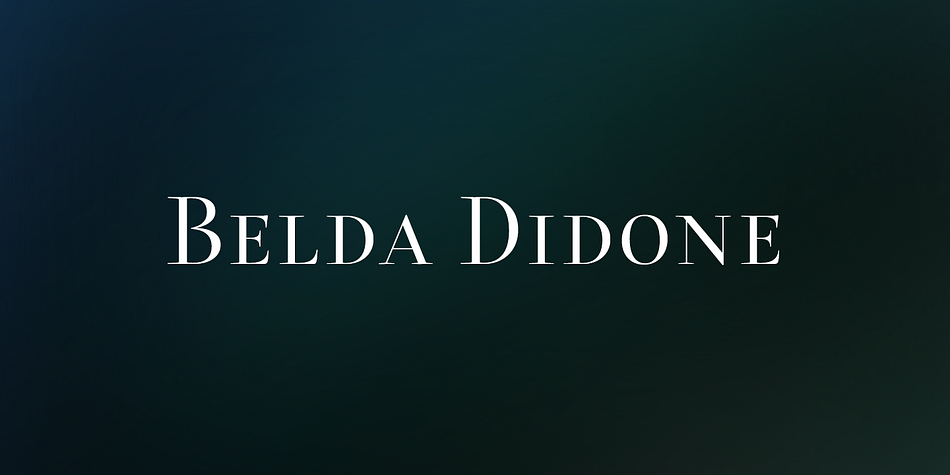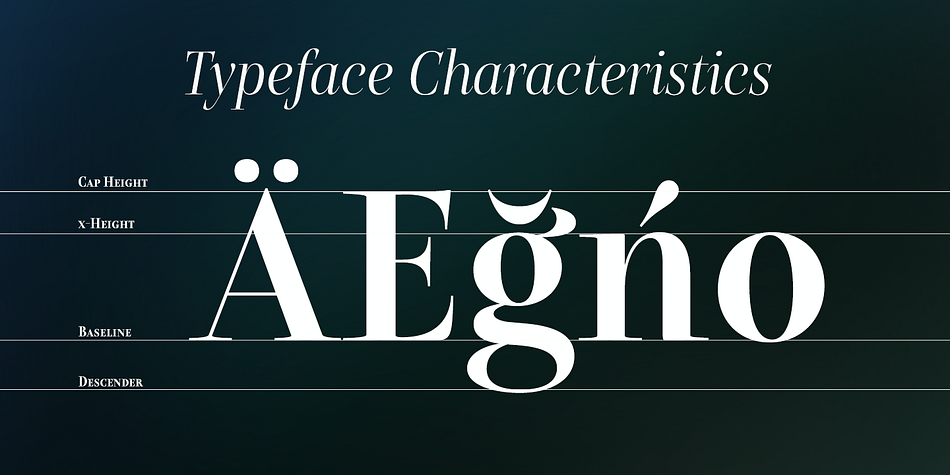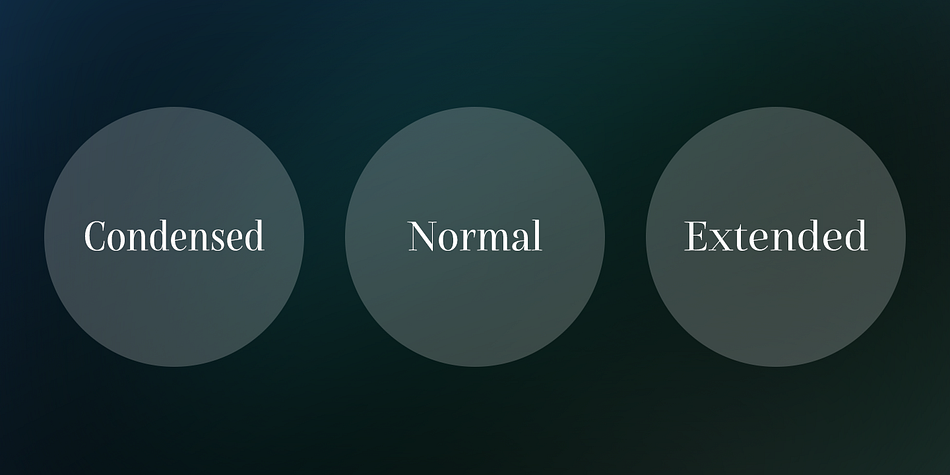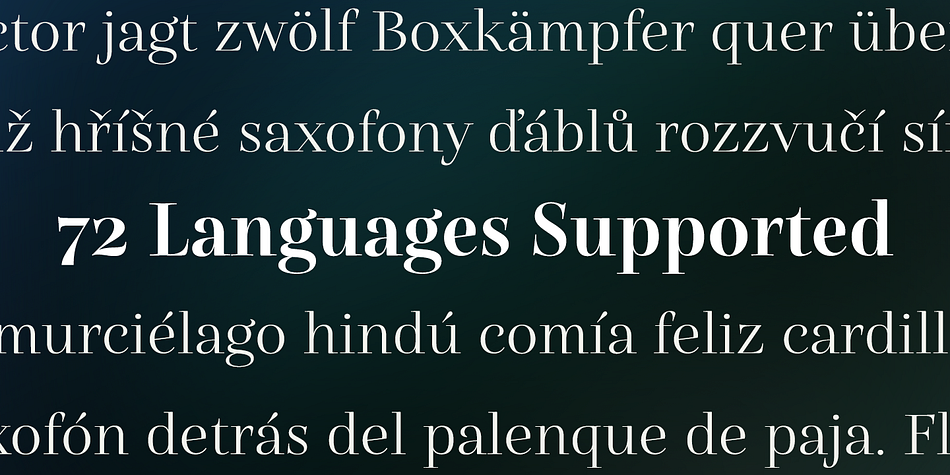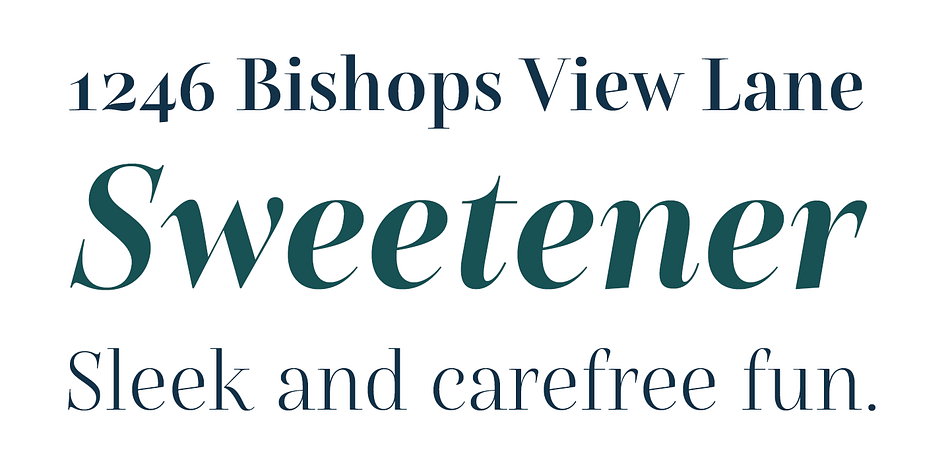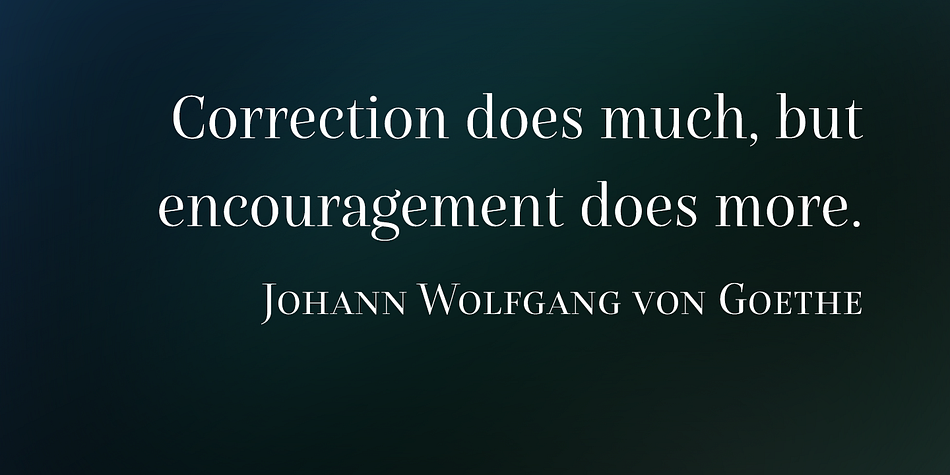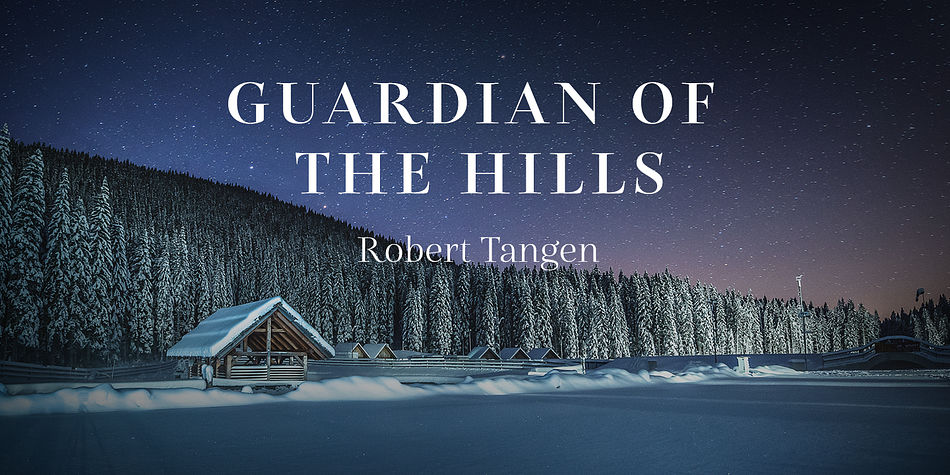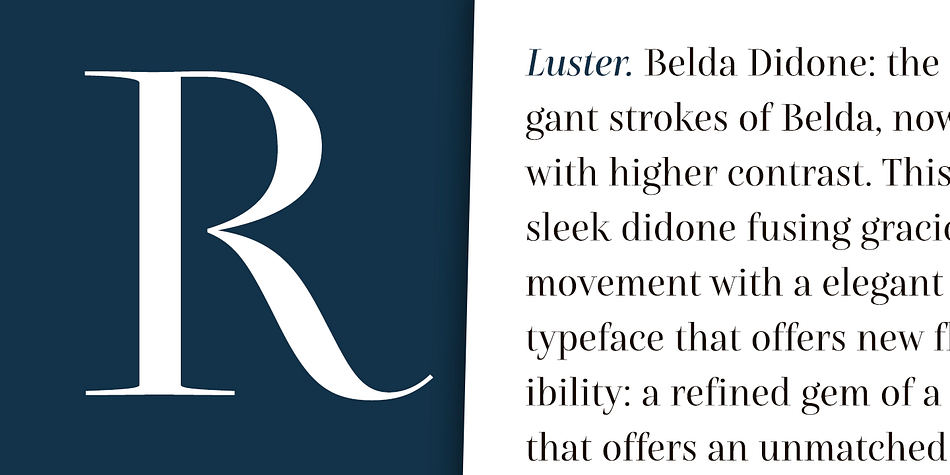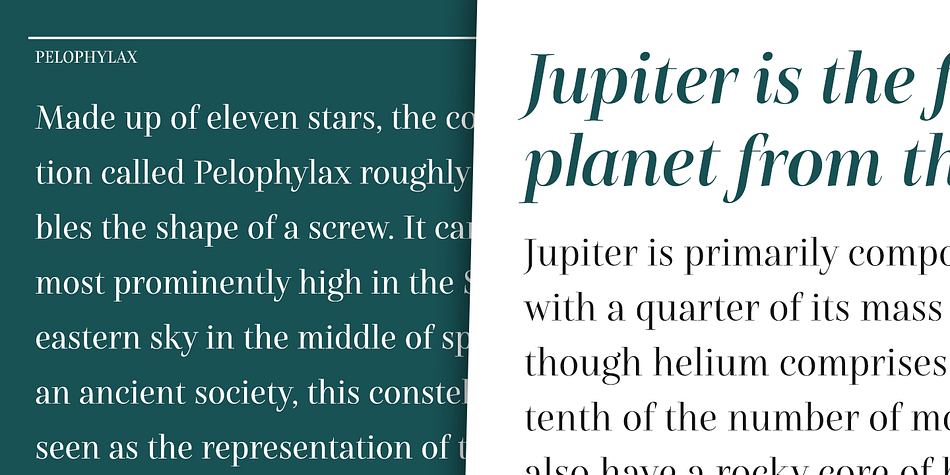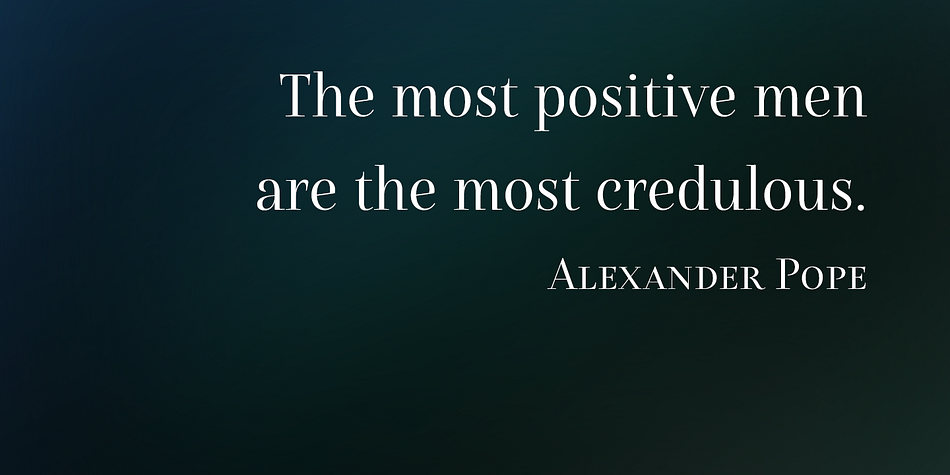
Designed by Jeremy Dooley, Belda Didone is a serif font family. This typeface has fifty-four styles and was published by Insigne Design.
Belda Didone: the elegant strokes of Belda, now with higher contrast. This is a sleek didone fusing gracious movement. An elegant typeface that offers new flexibility. A refined gem of a font that provides an unmatched level of luxury.
Belda Didone is Belda’s offspring, providing for all new possibilities. The high contrast strokes reference the delicate shapes, curves, and sharp serifs of the original. Belda Didone’s glyphs embody a unique style of harmony and sophistication with a balance unsurpassed in high contrast design.
The design is elegant and stable. Belda Didone’s forms have an intense luster and sparkle that captivates the reader’s eye. Belda has plenty of OpenType alternates, including small capitals, titling, and a wealth of weights and widths. This font has the potential to serve as both text and titling. It’s an excellent choice for book jackets, advertising, packaging, and other luxury applications.